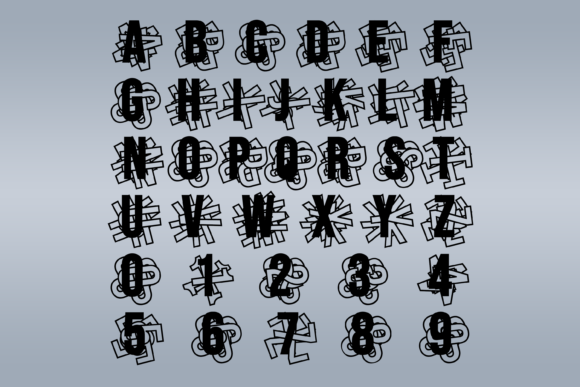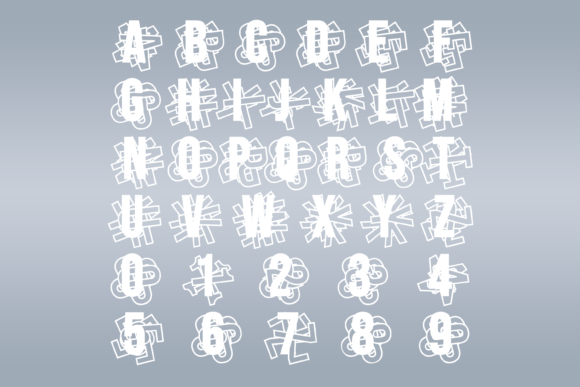
Adding a Touch of Whimsy to Your Creations
Have you ever been in the midst of a creative project, pouring your heart and soul into it, only to feel like something’s missing? Maybe it’s the perfect font to tie everything together, or a dash of personality to make your design truly shine. That’s where the Heaps Font comes in – a stunning decorative font that’s perfect for adding a touch of whimsy to your creations.
Whether you’re a seasoned designer or a crafty DIY enthusiast, Heaps Font is an amazing choice for anyone looking to add a unique and lovely touch to their projects. Its intricate details and playful style make it a valuable asset for designers, allowing them to create truly one-of-a-kind pieces that stand out from the crowd.
Heaps Font Key Features
- Unique Characteristics: Heaps Font features a unique blend of geometric and organic elements, resulting in a distinctive, futuristic aesthetic.
Designer Review: Heaps Font
Heaps Font is a quirky, hand-drawn sans-serif font that caught my eye with its unique charm. Here’s my honest review:
- Uniqueness: Heaps Font stands out in a crowded market with its distinctive style and flair.
- Expressiveness: The font’s hand-drawn nature gives it a personal, emotive feel that’s perfect for creative projects.
- Legibility: Despite its quirky design, Heaps Font remains easy to read, making it a great choice for body text.
- Limited range: Heaps Font might not be the best choice for projects that require a wide range of font sizes and styles.
- Not ideal for large blocks of text: While legible, Heaps Font can become tiring to read when used extensively.
- May not be suitable for formal projects: The font’s playful nature might not be suitable for formal, professional projects.
Overall, Heaps Font is a great addition to any designer’s toolkit. While it may have its limitations, its unique charm and expressiveness make it a great choice for creative projects. Just be mindful of its limitations and use it wisely.